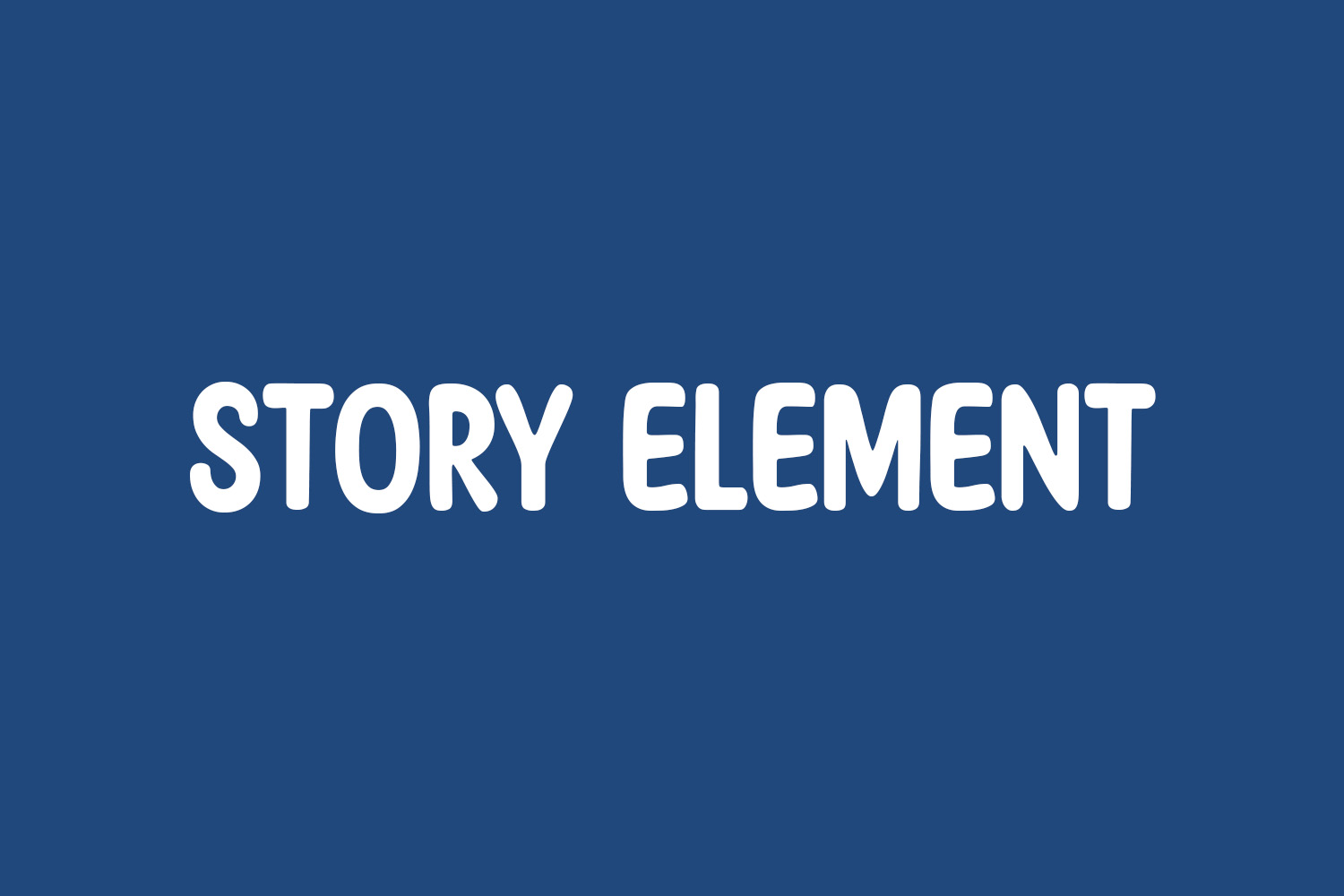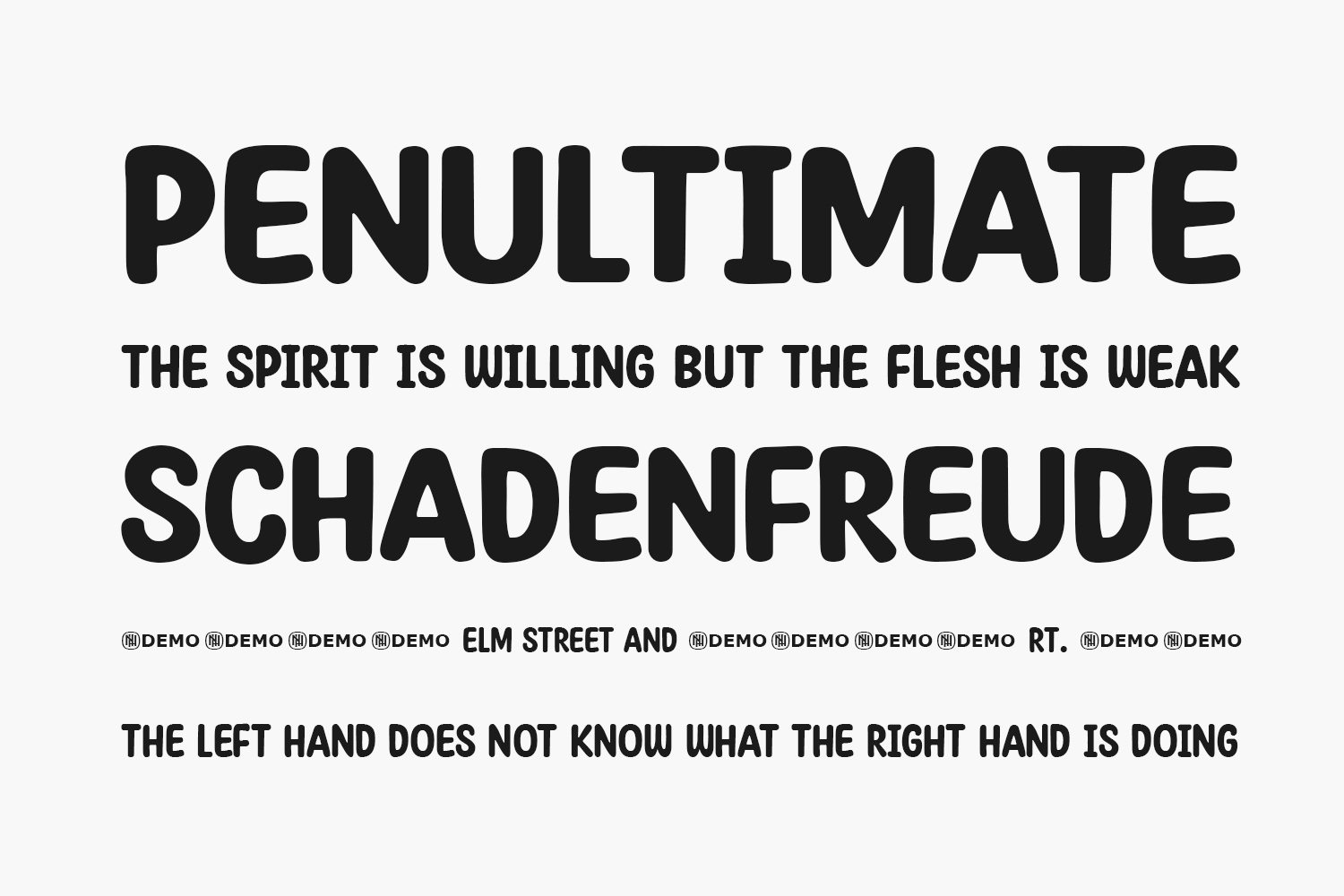
Story Element Free Font is a unique and captivating display font, perfect for creating attention-grabbing headlines and titles. The font’s handwritten style gives it a personal and authentic feel, while its bold and distinctive letterforms make it great for use in advertising, branding, and packaging. The font’s design is perfect for creating a sense of drama and storytelling, making it ideal for book covers, movie posters, and other similar projects.